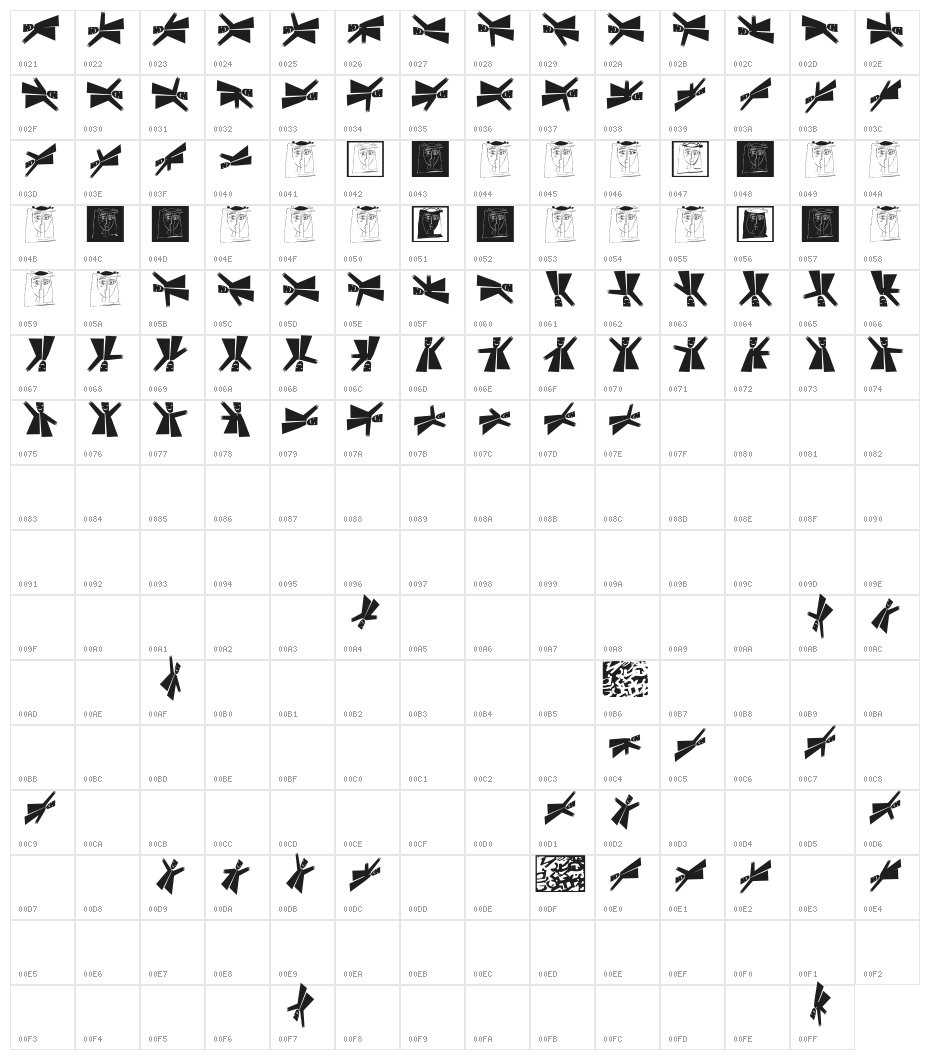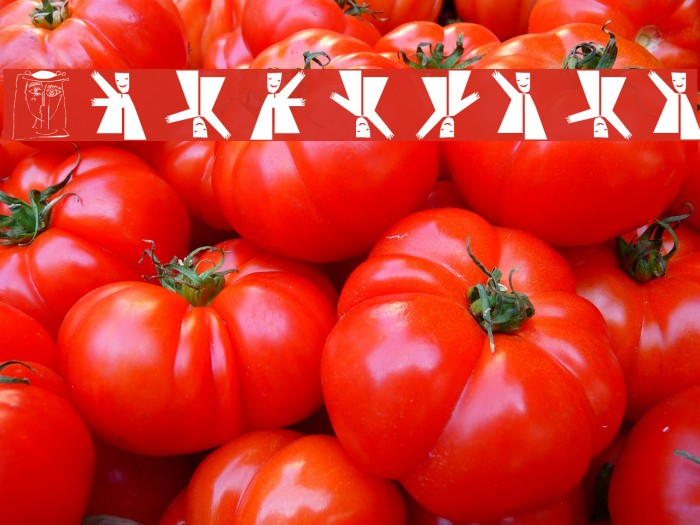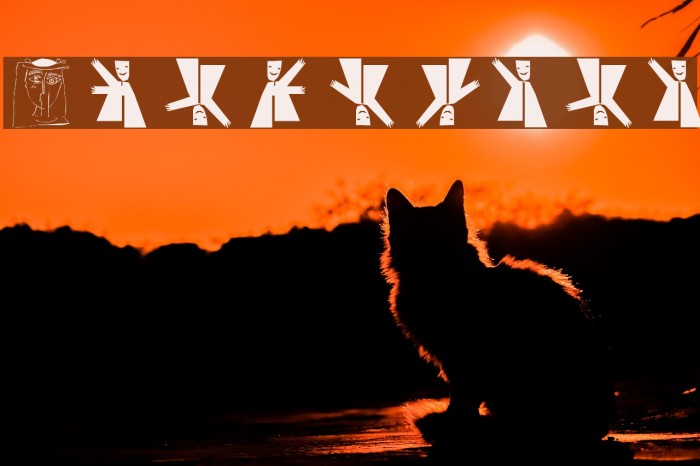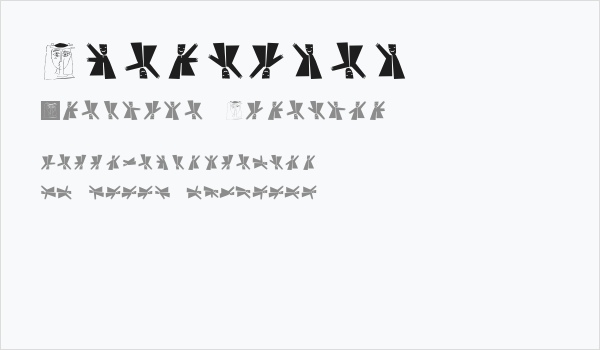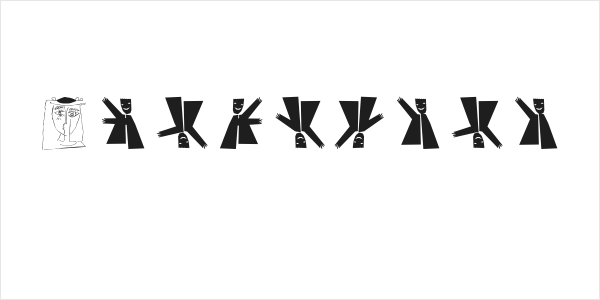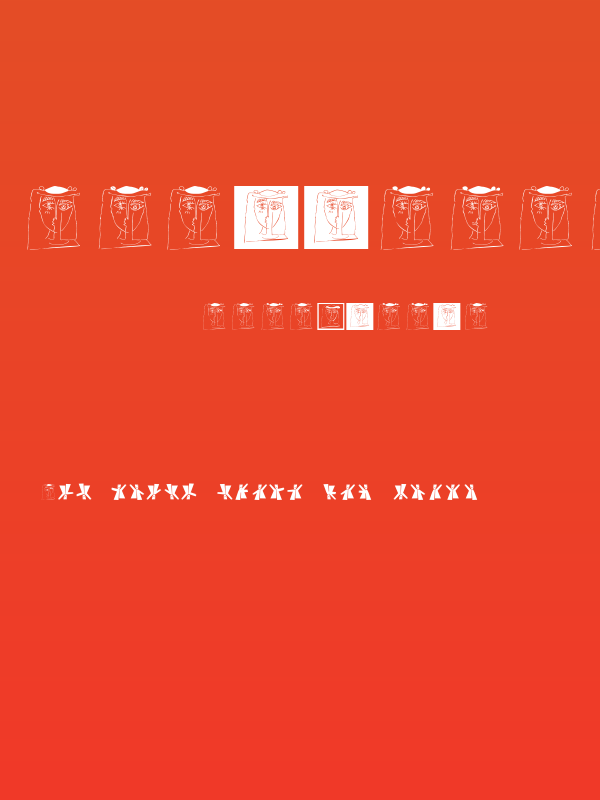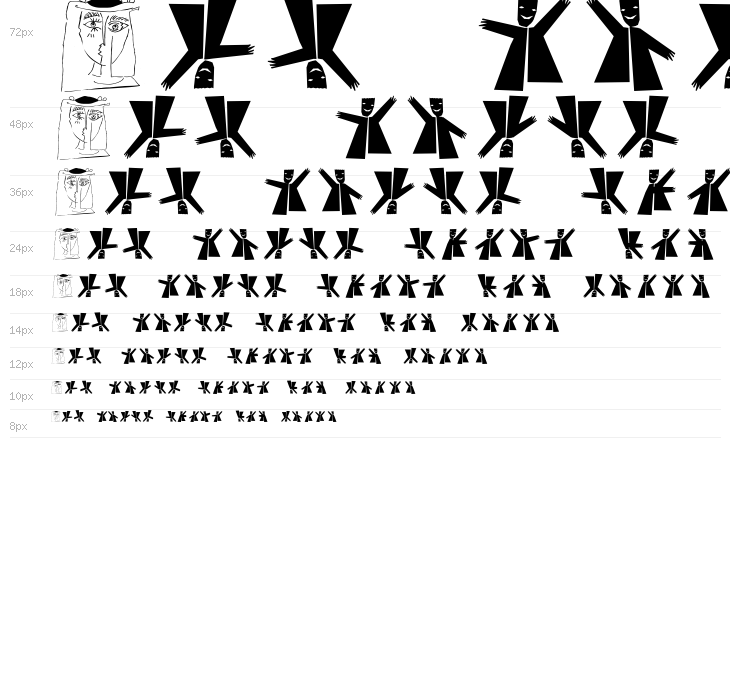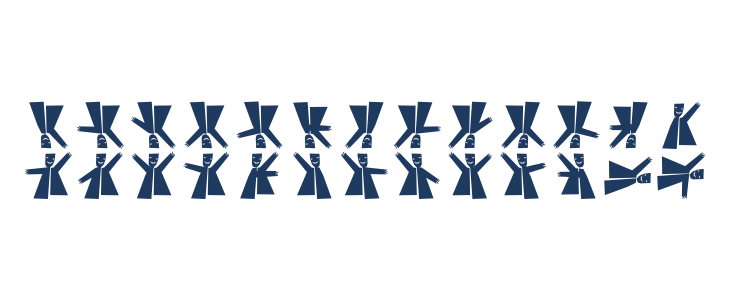
Exercises Font
Exercises Description
This is not a valid font. The image contains a series of abstract, artistic representations resembling human figures in various poses. These figures are stylized and do not correspond to any recognizable typographic characters or symbols typically found in a font set. The design is more illustrative and decorative, lacking the standard elements of a typeface such as consistent letterforms or numerals.
| Use Case | Illustrations, Decorative art |
| Proposed Projects | This design could be used for artistic projects, illustrations, or decorative purposes rather than typographic applications. |